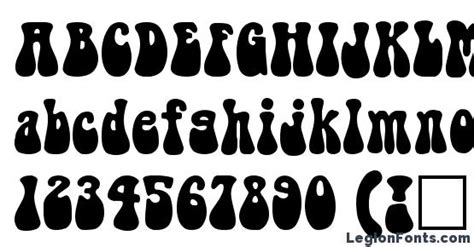
Bellbottom Laser Font. Web bell bottom laser is a free font for commercial use created by lorvad. Bell bottom laser is a fancy type font that can.
Web bell bottom laser is a free font for commercial use created by lorvad. Bell bottom laser is a fancy type font that can.
Bell bottom laser is a fancy type font that can. Web bell bottom laser is a free font for commercial use created by lorvad.